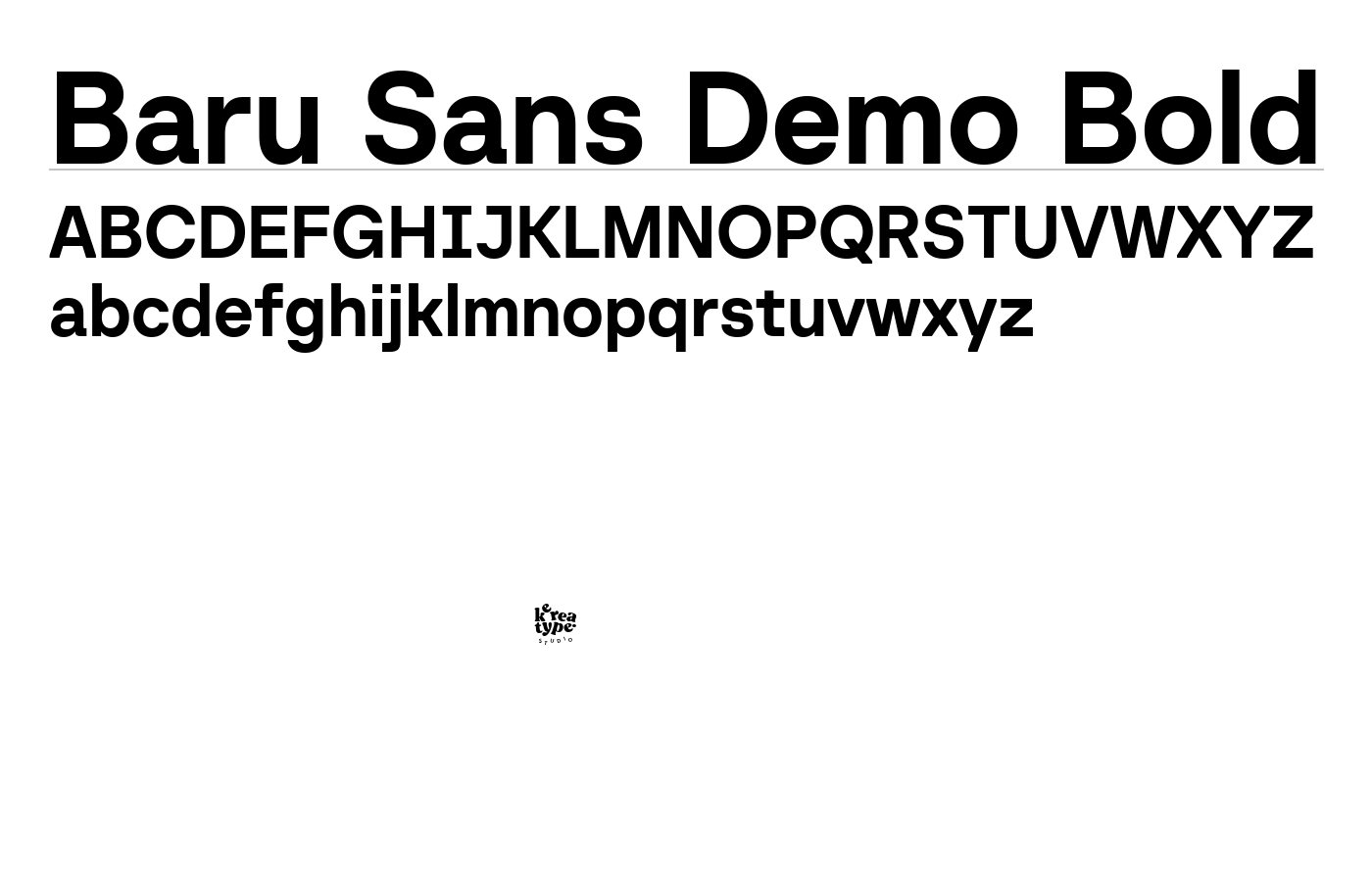
Baru Sans Demo is a bold, modern sans serif font featuring clean, geometric letterforms with consistent stroke weight and a sturdy presence. Its open, well-balanced design and medium x-height make it highly readable, perfect for creating strong headlines, branding, and digital interfaces that require clarity and impact. This font’s versatile, no-nonsense style works well for contemporary brands aiming for a confident yet approachable look.
Baru Sans Demo Font
About Baru Sans Demo Font